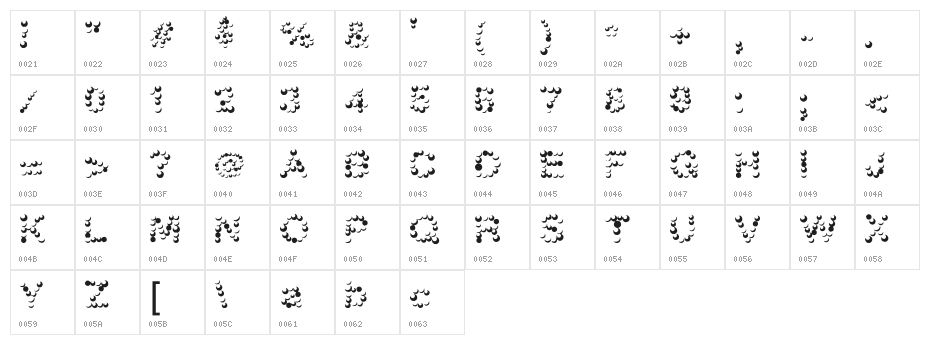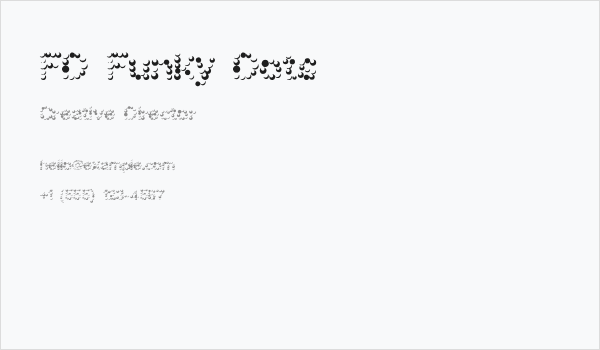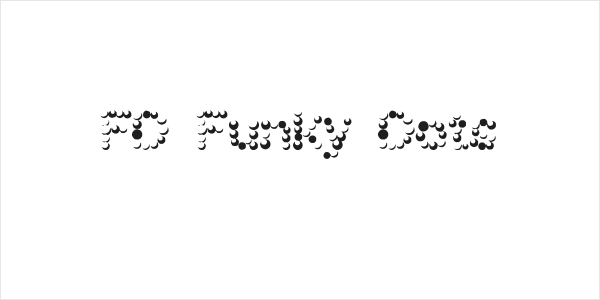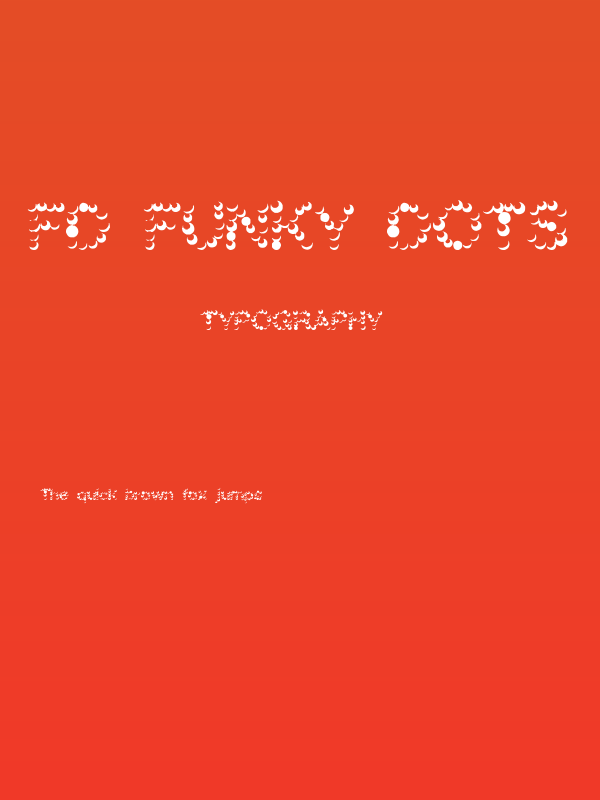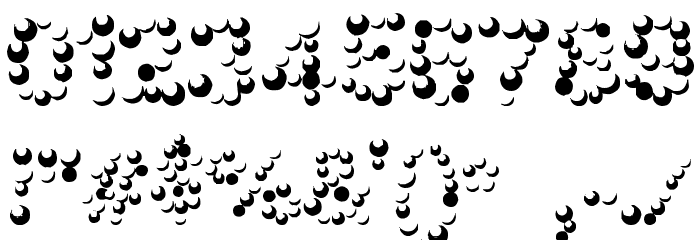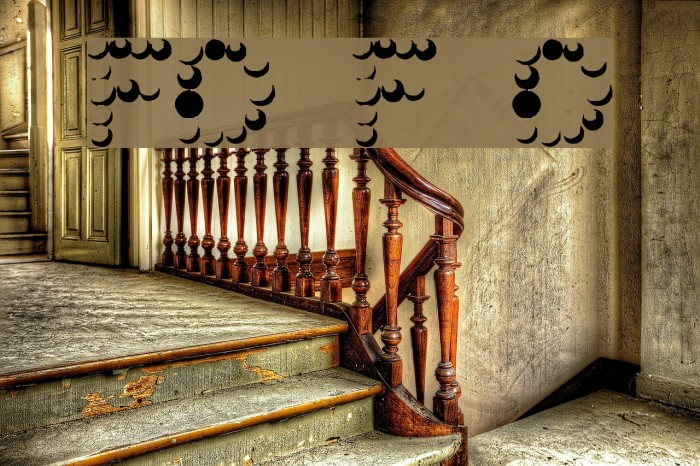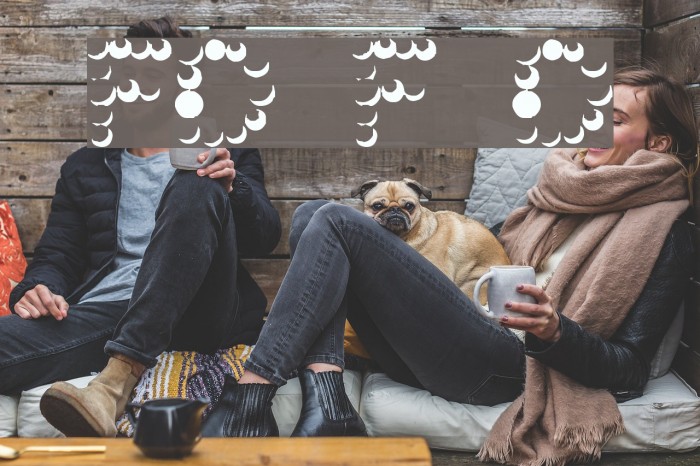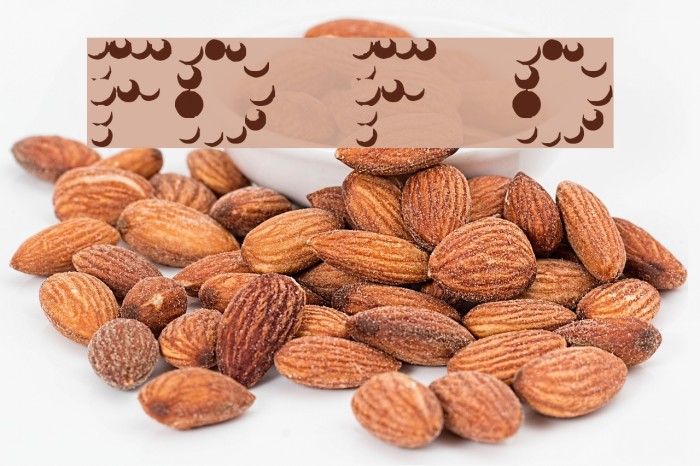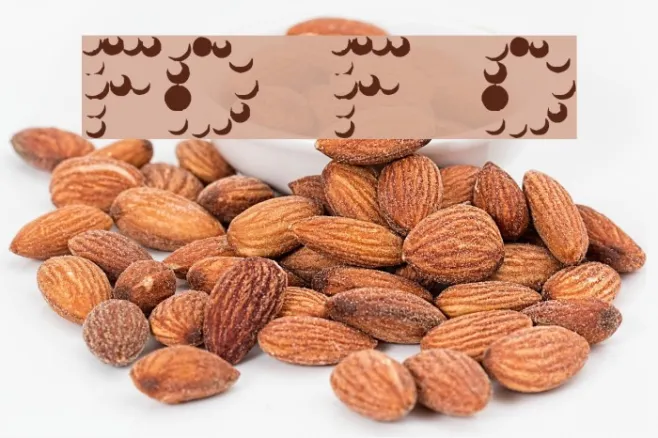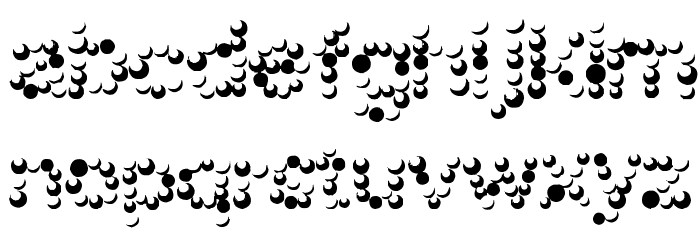
FD Funky Dots Font
FD Funky Dots Description
This playful and dynamic font features a unique design composed of dots arranged in a way that forms each character. The dots vary in size, creating an engaging visual rhythm that adds a sense of movement and energy. The font is highly decorative, making it ideal for projects that require a bold and eye-catching aesthetic. Its unconventional style is perfect for creative and artistic applications, where a standard typeface might not suffice. The font's distinct appearance makes it suitable for use in branding, posters, and any design work that aims to stand out and make a statement.
| Proposed Projects | Ideal for branding, posters, creative designs, and artistic projects. |